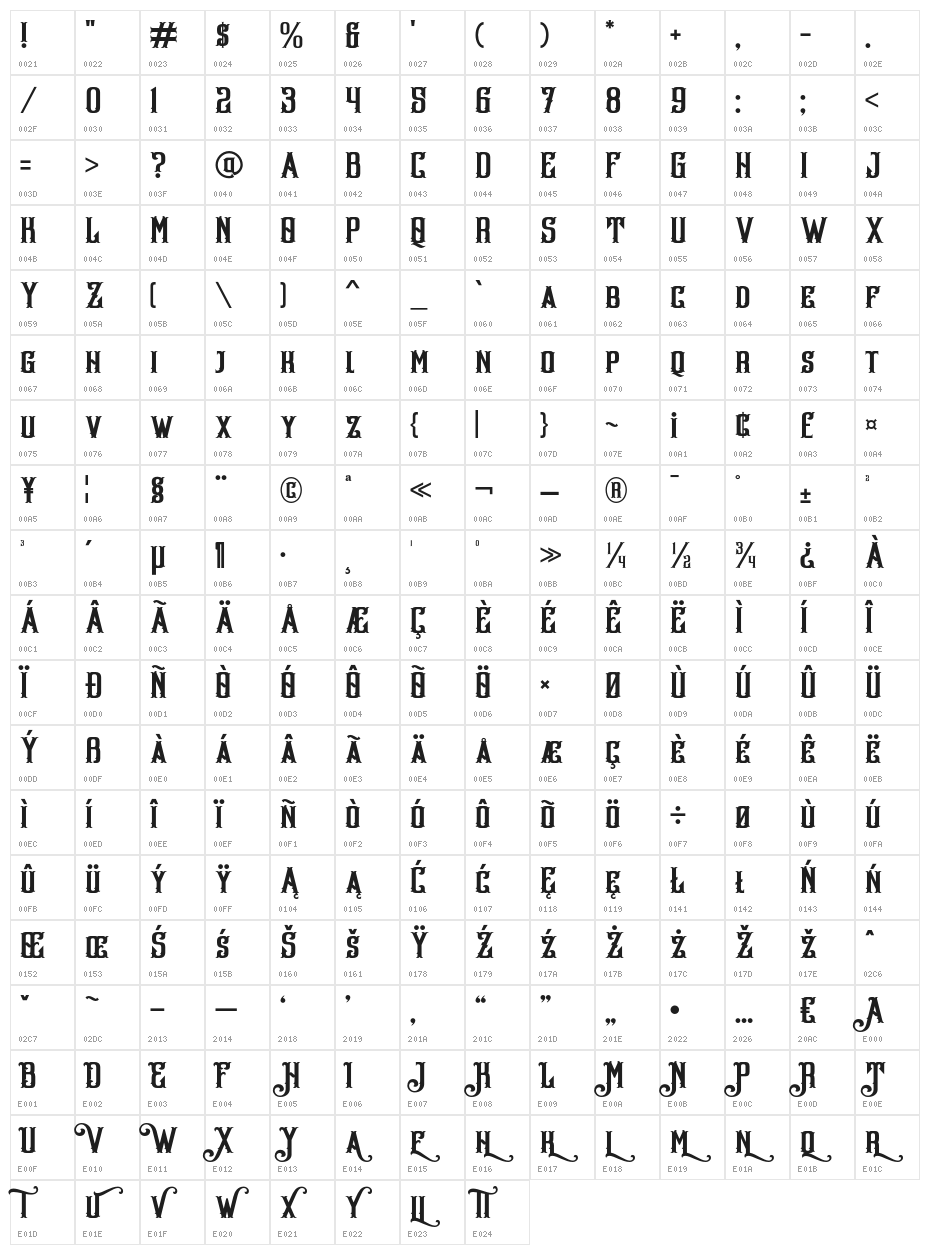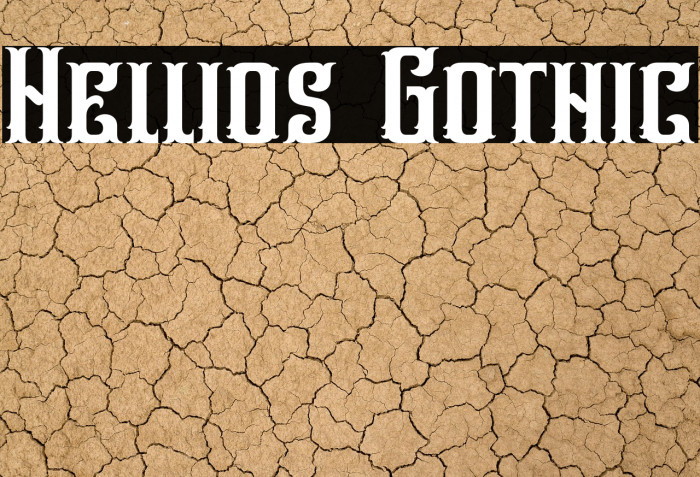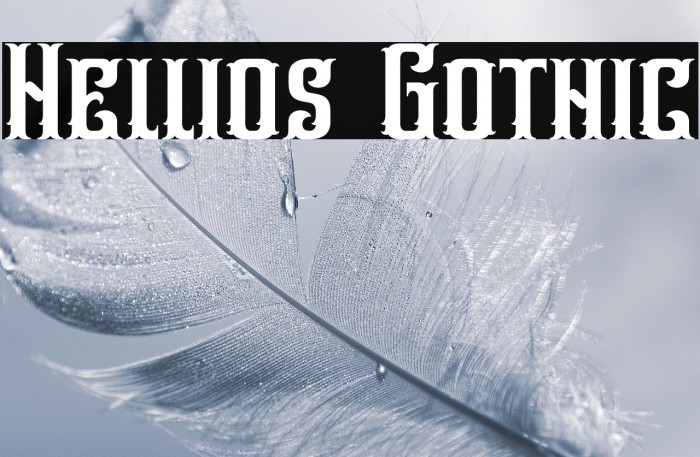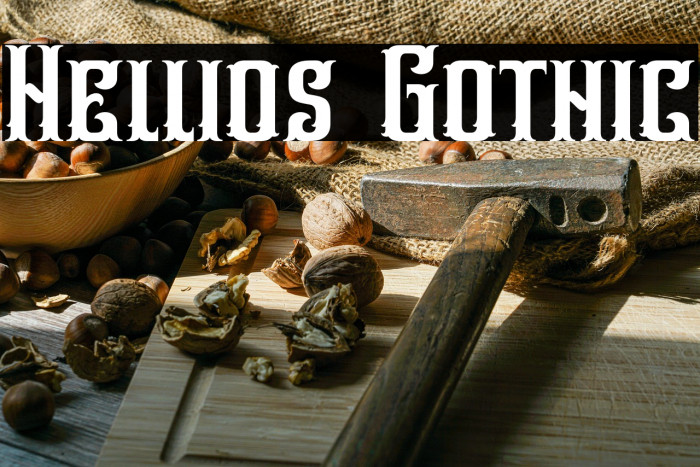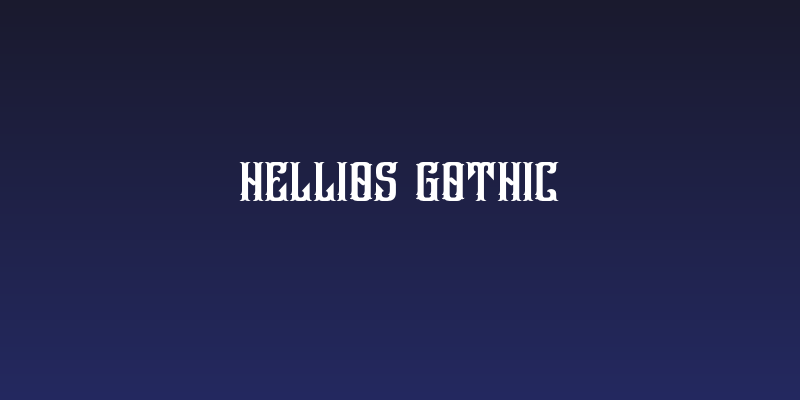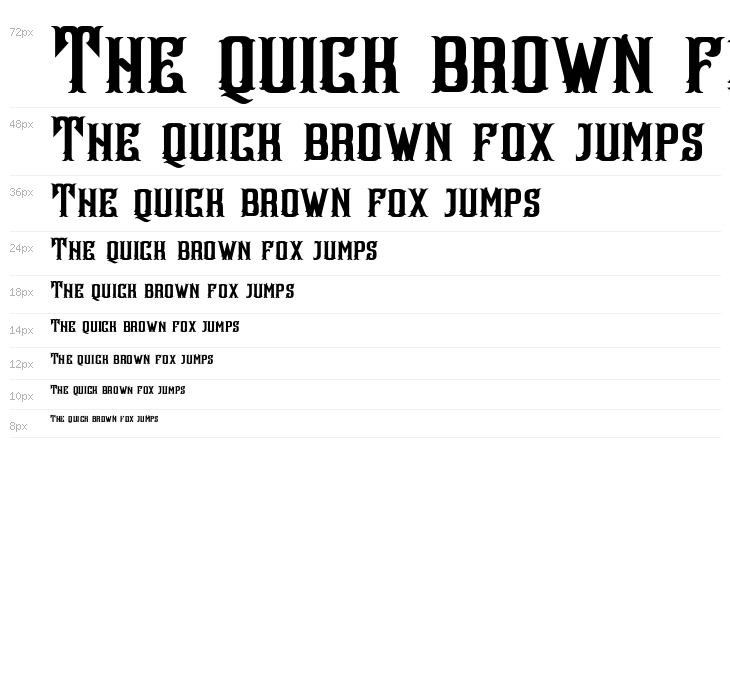
Hellios Gothic Font
Hellios Gothic Description
This font features a bold and striking design with a gothic influence, characterized by sharp, angular serifs and a strong vertical emphasis. The uppercase letters are particularly prominent, with a dramatic flair that suggests a sense of authority and tradition. The lowercase letters maintain the same boldness, ensuring consistency across text. Numbers and special characters are equally robust, making them suitable for impactful displays. The overall aesthetic is reminiscent of medieval script, yet it maintains a modern edge that makes it versatile for contemporary use.
| Overall Style | Gothic, Modern |
| Proposed Projects | Ideal for branding, posters, album covers, and any project requiring a dramatic and authoritative typeface. |